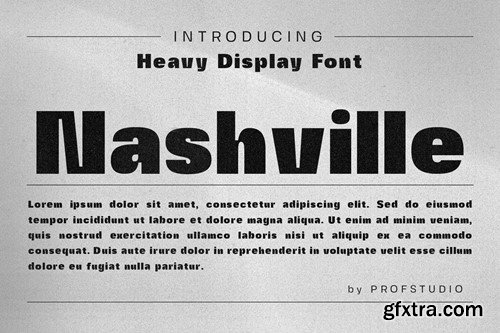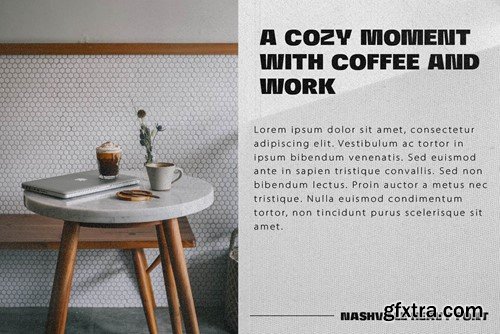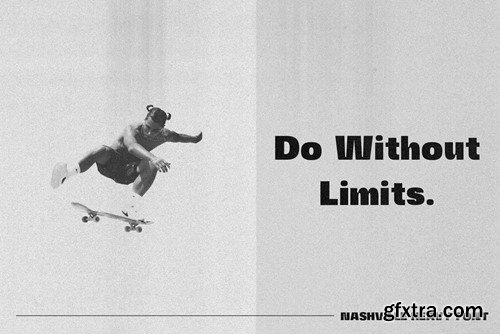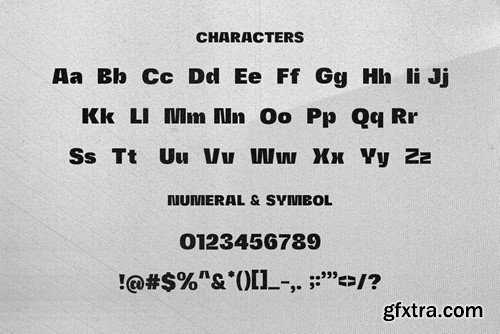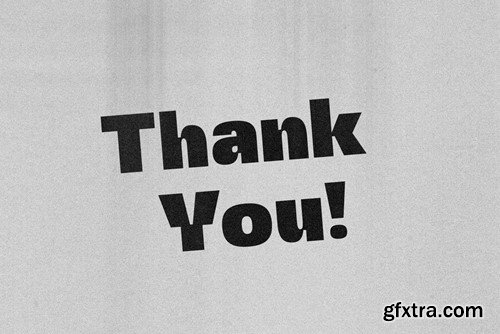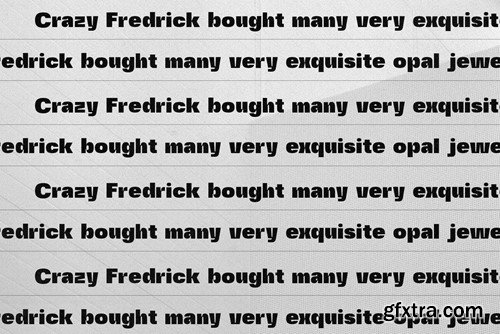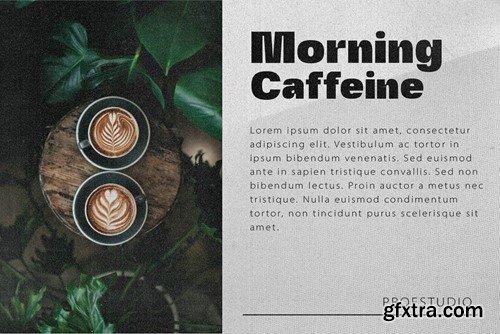
Nashville - 现代Sans Bold 字体 5LKX2DX
Nashville - Modern Sans Heavy Typeface
**Hi Ladies and Gentleman ! Proudly present best signature font “Nashville” for you business. Nashville - Modern Bold which can be interpreted professional. we keep this font looks elegant, Bold, premium, heavy, modern, readable, stylish, catchy and easy to use. Nashville - is the great choice for Poster design, quotes, album cover, magazine and many other design project. Achillea here to make your work to high level!!! Features: Standar character A-Z and a-z Numberial and Functional File include: Nashville OTF Nashville TTF